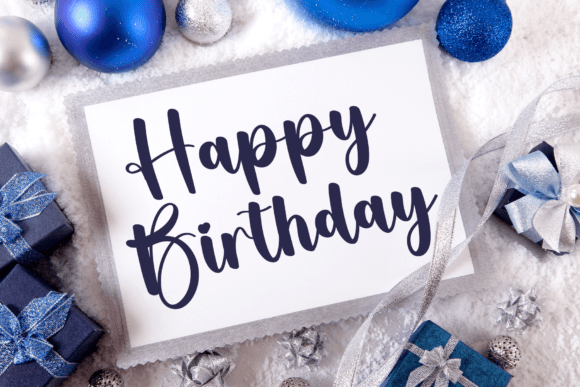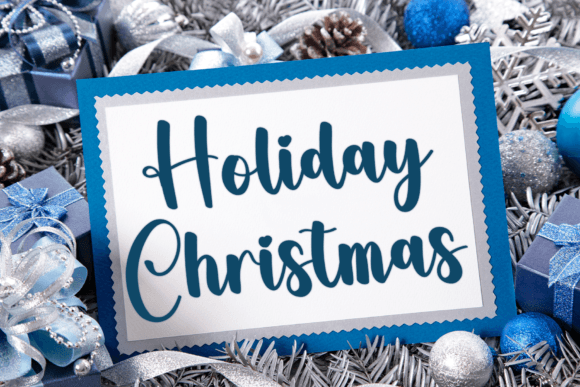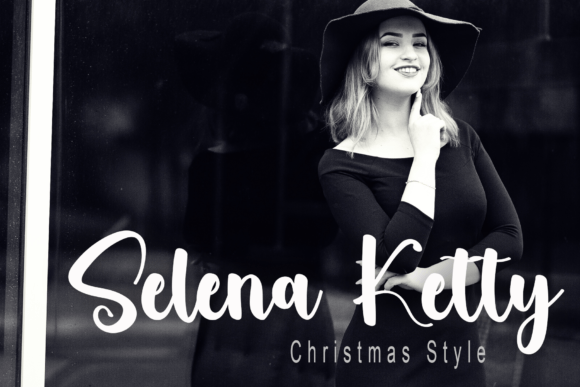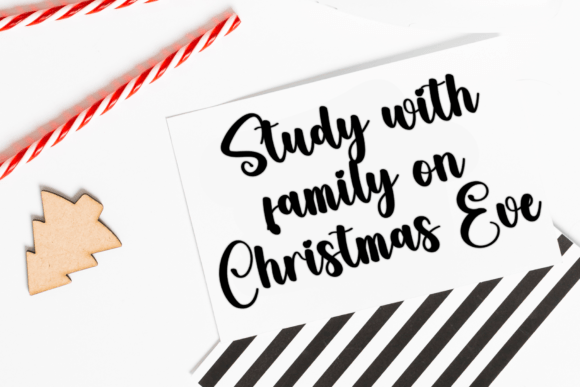
Introducing December Font: The Sweet and Friendly Handwritten Font for Your Design Needs
Are you looking for a font that can add a touch of warmth and personality to your designs? Look no further than December Font, a sweet and friendly handwritten font that’s perfect for creating beautiful wedding invitations, cards, and other designs that require a fun and playful touch.
What Makes December Font Special?
December Font is a fresh and neat handwritten font that’s designed to bring a sense of joy and elegance to your designs. Its sweet and friendly style makes it ideal for a variety of projects, from wedding invitations and cards to party decorations and social media graphics.
One of the standout features of December Font is its PUA (Private Use Area) encoding, which means that you can access all of the glyphs and swashes with ease. This makes it easy to customize your text and add unique touches to your designs.
December Font is particularly well-suited for wedding invitations and cards, thanks to its elegant and sophisticated style. The font’s fresh and neat appearance makes it perfect for creating beautiful and memorable wedding stationery that will set the tone for the big day.
Whether you’re a designer or a crafter, December Font is a great choice for creating stunning wedding invitations, save-the-date cards, and other wedding stationery. The font’s friendly and approachable style makes it easy to pair with a variety of design elements, from floral patterns to watercolor illustrations.
Adding a Fun Touch to Your Designs
December Font is not just limited to wedding invitations and cards – it’s also perfect for adding a fun touch to a variety of other designs. From party decorations to social media graphics, this font is sure to bring a smile to people’s faces.
The font’s playful and whimsical style makes it ideal for creating eye-catching headlines, titles, and other text elements that need to stand out. And with its PUA encoding, you can easily access a range of glyphs and swashes to add extra personality to your text.
Why Choose December Font?
So why choose December Font for your design needs? Here are just a few reasons:
- Sweet and friendly style: December Font has a warm and inviting style that’s perfect for creating beautiful and memorable designs.
- PUA encoded: With PUA encoding, you can easily access a range of glyphs and swashes to customize your text.
- Fresh and neat appearance: December Font has a clean and elegant appearance that’s perfect for creating stunning wedding stationery and other designs.
In conclusion, December Font is a sweet and friendly handwritten font that’s perfect for adding a touch of warmth and personality to your designs. With its PUA encoding, fresh and neat appearance, and easy-to-use style, this font is ideal for creating beautiful wedding invitations, cards, and other designs that require a fun and playful touch.
Whether you’re a designer or a crafter, December Font is a great choice for any project that needs a little extra personality. So why not give it a try and see the difference it can make in your designs?